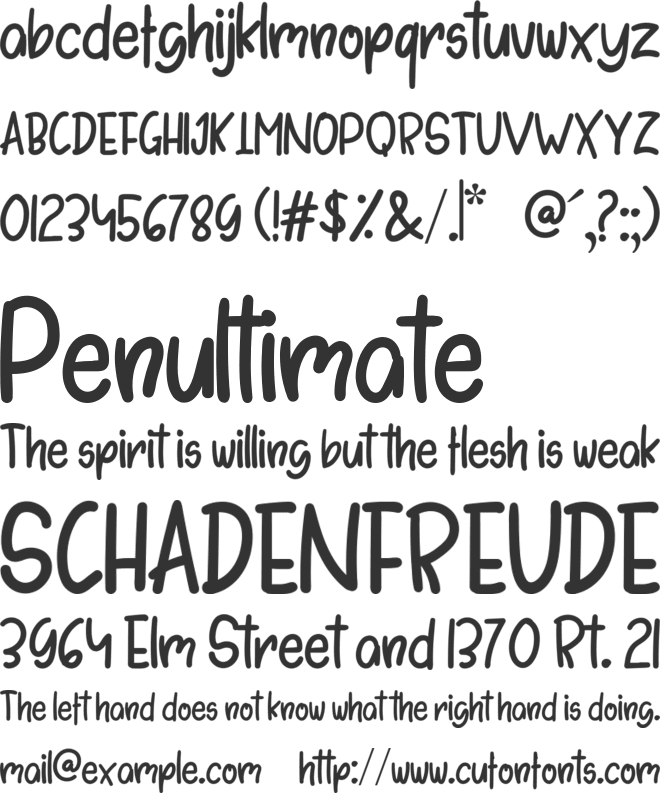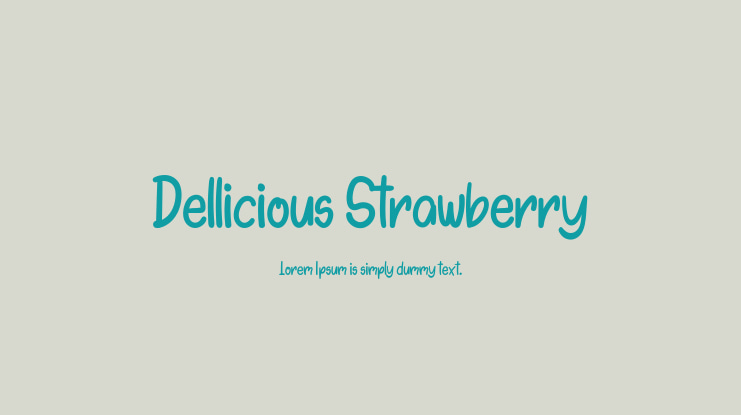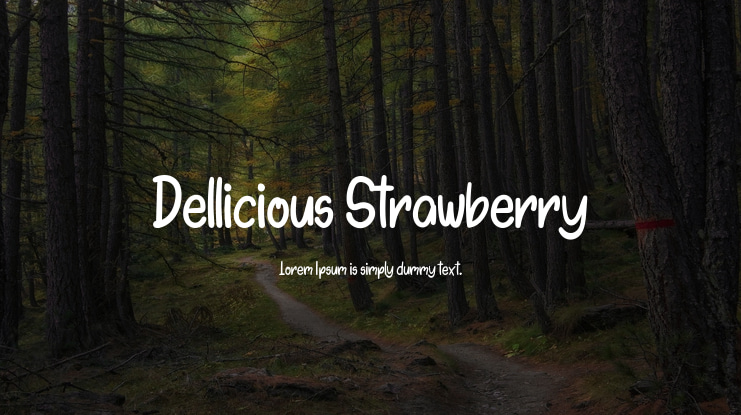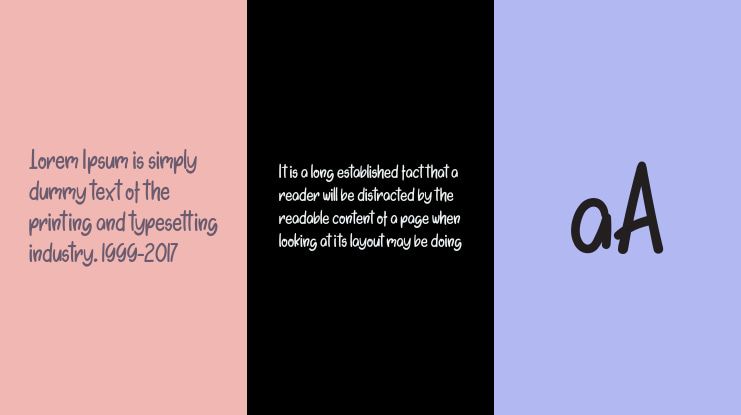
Dellicious Strawberry Font
Delicious Strawberry is a handwritten font that is simple and easy to read. This font is very suitable for your business needs such as logos, quotes, banners, templates, t shirts and others. I hope you like it.